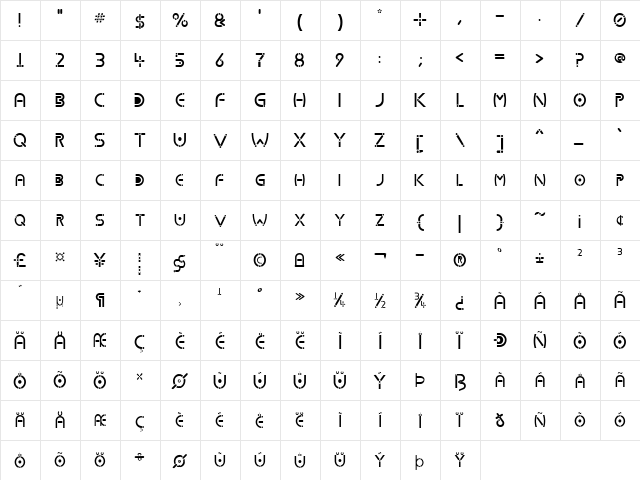
Kharnorric Norm 2000 Regular
Kharnorric Norm 2000 takes a measured approach to typography — its balanced proportions and neutral character make it a reliable workhorse for both digital and print work.